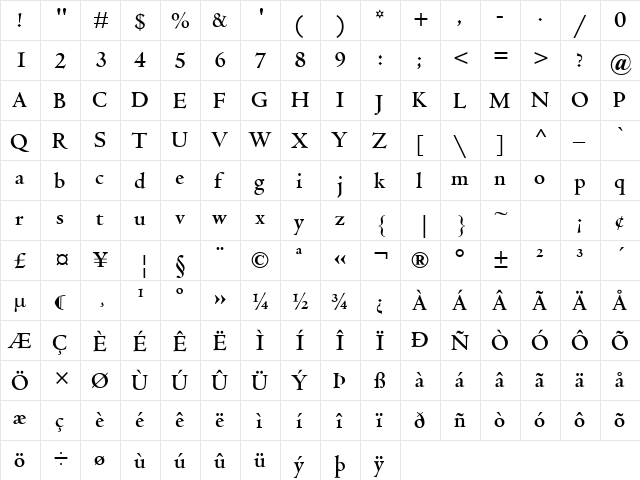
Centaur MT Bold Font Preview
Centaur MT Bold
Centaur MT Bold Font Details
Design Context for Centaur MT Typeface
Centaur MT offers clean, dependable letterforms without strong stylistic allegiance, making it a practical choice for designers who need flexibility. The heavy weight commands attention and anchors typographic hierarchies.